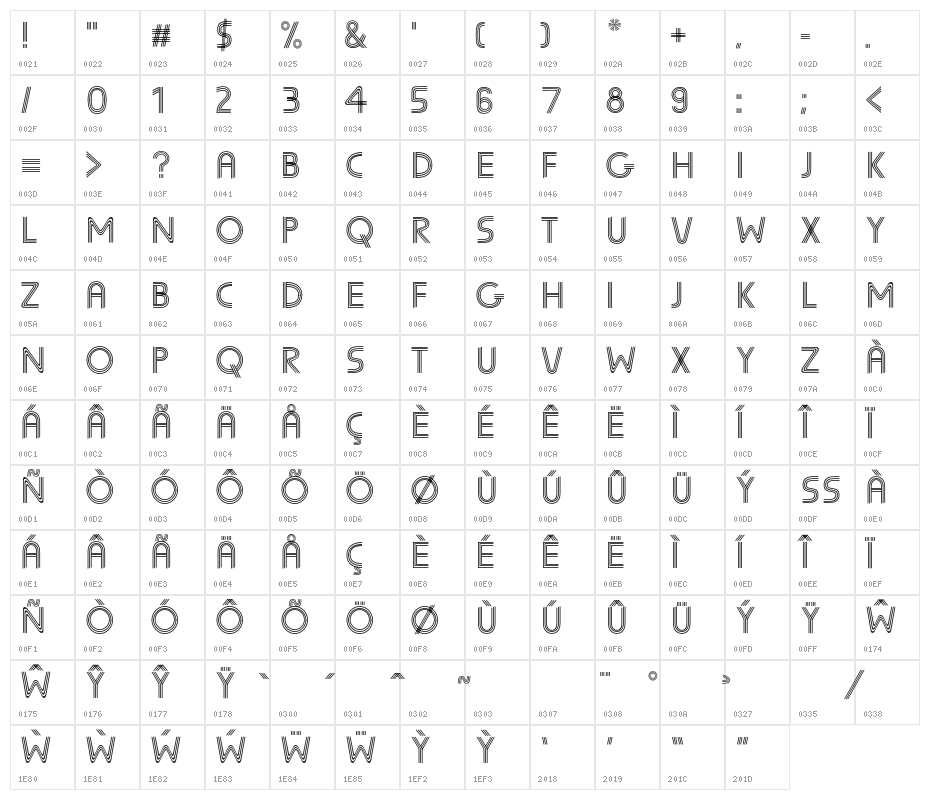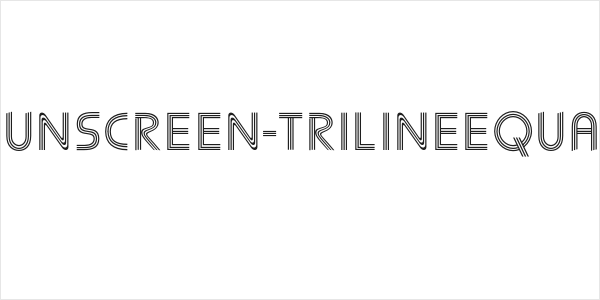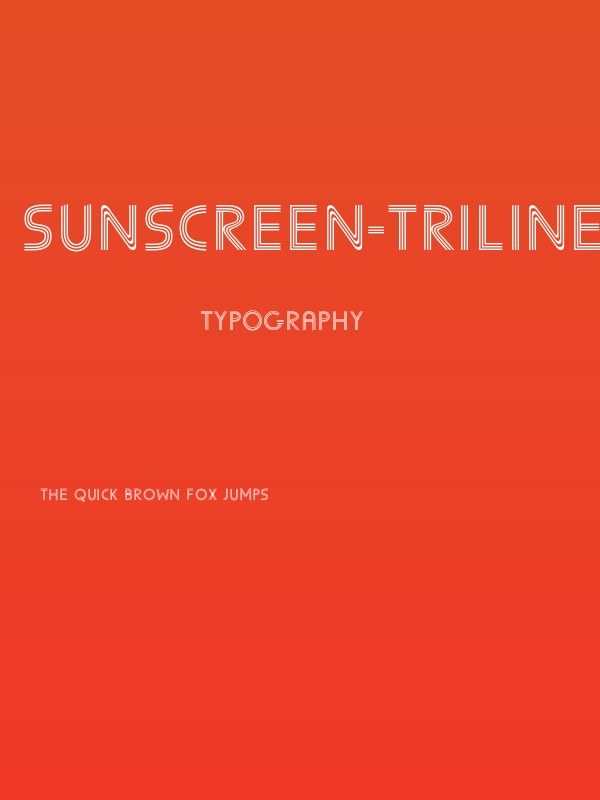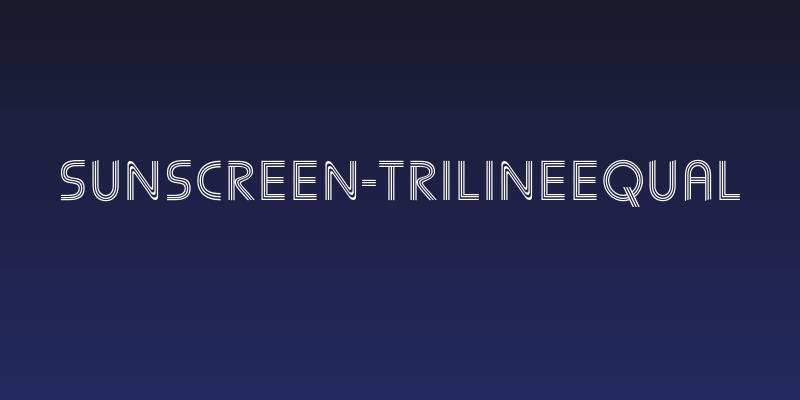
Sunscreen-TrilineEqual Font
Sunscreen-TrilineEqual Description
This font features a unique triline design, where each character is composed of three parallel lines, creating a striking and modern appearance. The geometric structure of the letters is consistent, with clean lines and uniform spacing that give it a cohesive look. The uppercase and lowercase letters maintain the same stylistic approach, ensuring versatility across different text cases. Numbers and special characters are designed with the same triline effect, making them stand out while maintaining readability. The overall style is bold and eye-catching, ideal for projects that require a contemporary and artistic touch.
| Proposed Projects | Ideal for branding, posters, headlines, and modern graphic design projects. |